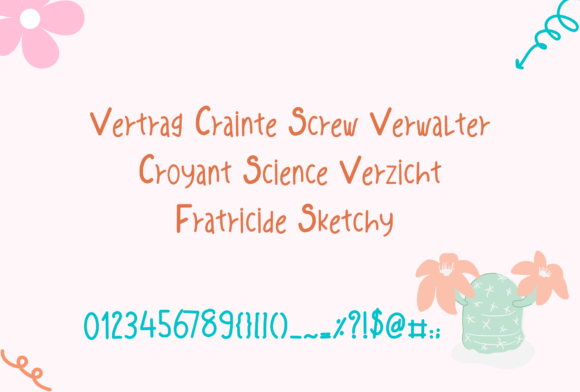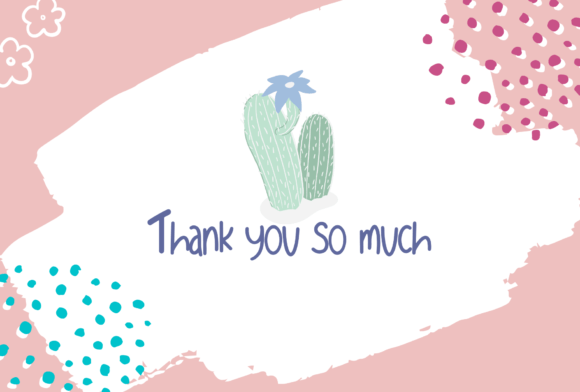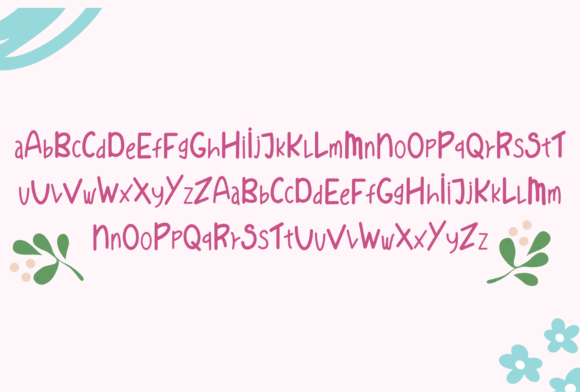
The Lazy Designer Font Download – Playful Handwritten Script
The The Lazy Designer Font download is a playful handwritten typeface designed to bring joy, fun, and creativity to your projects. With its casual strokes and lighthearted vibe, this font is perfect for both personal and professional use. Whether you are designing posters, greeting cards, or digital graphics, The Lazy Designer ensures your work feels cheerful and engaging.
A Playful and Joyful Style
The The Lazy Designer Font download captures the energy of handwritten notes while adding a unique playful flair. Its joyful curves create a friendly and approachable design, making it suitable for projects that need personality and warmth.
Perfect for Crafts and DIY Projects
The The Lazy Designer Font download works beautifully in scrapbooks, stickers, planners, and handmade cards. Its playful structure adds authenticity and uniqueness to every DIY creation, giving your projects a handcrafted feel.
Great for Posters and Greeting Cards
From birthday cards to festive posters, the The Lazy Designer Font download brings joy and creativity. Its fun strokes ensure your text stands out while keeping it clear and easy to read, making it ideal for both small and large-scale designs.
Ideal for Logos and Branding
Typography defines a brand’s tone, and the The Lazy DesignerFont download adds character and charm to logos, packaging, and promotional materials. Its playful energy makes it a strong choice for creative brands that want to appear approachable and fun.
Readability with Personality
Many playful fonts sacrifice readability for flair, but the The Lazy Designer Font download maintains balance. Its neat strokes ensure text is always legible, while still carrying a vibrant, handwritten style.
Why Choose The Lazy Designer Font?
Among handwritten fonts, the The Lazy DesignerFont download stands out for its joyful personality and versatile usability. It’s casual enough for crafts yet polished enough for branding, offering flexibility across design needs.
Add Joy to Your Designs
Typography shapes the atmosphere of your projects, and the The Lazy DesignerFont download helps you add playfulness, charm, and warmth. Whether for posters, cards, or branding, this font ensures your designs shine with creativity.